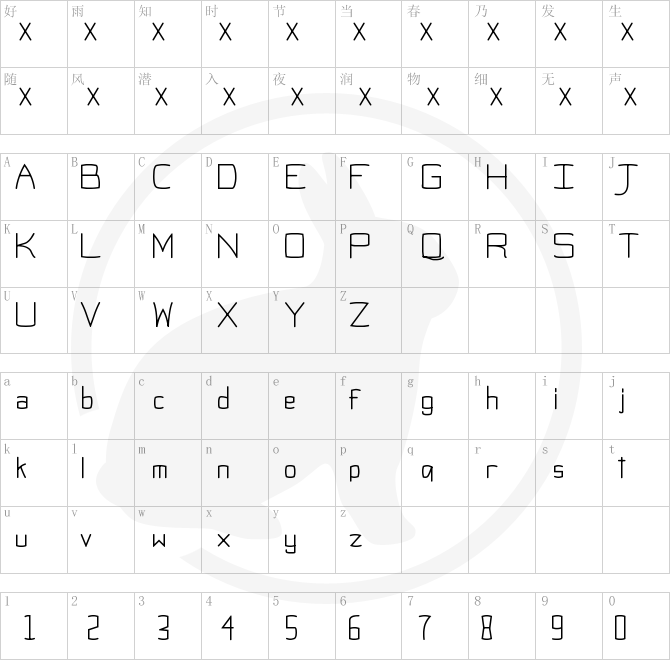
- Font Name:Obti Sans Neue
Obti-Sans-Neue.ttf is a very beautiful artistic font, Obti-Sans-Neue.ttf is widely used in the design and printing of various books and pictures,Obti-Sans-Neue.ttf has a strong visual impact,Obti-Sans-Neue.ttf is a commonly used font in newspapers, magazines and books, and is used in posters, e-commerce Poster design, store design, logo design, font design and other fields.Obti-Sans-Neue.